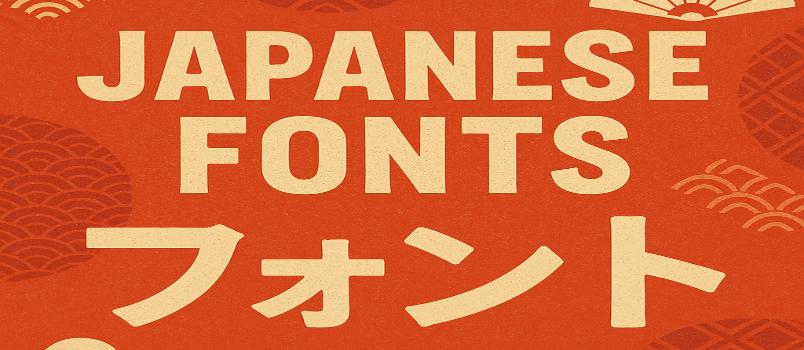
Japanese font design represents one of the most sophisticated and culturally rich writing systems in the world. These elegant typefaces carry centuries of tradition while adapting to modern digital needs, making them essential tools for designers working with Japanese text or seeking to capture the aesthetic essence of Japanese culture.
Choosing the Right Japanese Font
Selecting appropriate Japanese fonts depends on your project’s goals, audience, and medium. Corporate communications benefit from established fonts like Hiragino or Yu Gothic, which balance professionalism with excellent readability across devices.
Creative projects allow for more experimental choices, including decorative fonts that incorporate traditional motifs or contemporary interpretations of classical styles. However, readability should never be sacrificed for visual appeal, especially when communicating important information.
Japanese Fonts
Karate
Gang of Three
This rebellious typeface breaks conventional rules with attitude and edge. Gang of Three font delivers street-smart typography that’s perfect for urban designs, music projects, and brands targeting younger demographics who appreciate unconventional aesthetics.
Sayonara
Elegantly bidding farewell to ordinary typography, Sayonara font flows with graceful curves reminiscent of traditional Japanese brush strokes. This versatile typeface works beautifully for restaurant menus, cultural events, and designs requiring gentle sophistication.
Bonzai
Compact yet mighty, Bonzai font draws inspiration from the ancient art of miniature tree cultivation. This carefully crafted typeface brings zen-like balance to your designs, perfect for wellness brands, meditation apps, and projects emphasizing mindful simplicity.
Chinese Takeaway
Yama Moto
Named after mountain origins, Yama Moto font stands tall with natural strength and organic flow. This earthy typeface connects your designs to nature’s wisdom, making it excellent for outdoor brands, organic products, and environmentally conscious messaging.
Osaka Sans Serif
Clean and contemporary, Osaka Sans Serif font represents modern Japanese design philosophy. This minimalist typeface strips away unnecessary elements while preserving cultural essence, perfect for tech companies, architectural firms, and forward-thinking brands.
Chow Fun
Deliciously distinctive, Chow Fun font adds flavor to every project with its handcrafted character. This approachable typeface works wonderfully for casual dining establishments, food blogs, and designs that celebrate culinary creativity.
Last Ninja
Stealthy and sharp, Last Ninja font moves through your designs with silent precision. This mysterious typeface brings ancient warrior mystique to modern projects, ideal for gaming interfaces, martial arts studios, and brands with adventurous spirits.
Seven Monkey Fury
Energetic and unpredictable, Seven Monkey Fury font unleashes creative chaos in the best possible way. This dynamic typeface captures playful rebellion, perfect for entertainment brands, children’s products, and projects celebrating uninhibited fun.
Gyosho
Flowing like water over stone, Gyosho font embodies the fluid beauty of Japanese calligraphy. This artistic typeface brings meditative elegance to luxury brands, art galleries, and designs requiring sophisticated cultural resonance.
Pho Tai
Warm and inviting, Pho Tai font creates instant comfort through its approachable letterforms. This friendly typeface captures the communal spirit of shared meals, making it perfect for restaurants, food packaging, and hospitality brands.
Font Shui
Harmoniously balanced, Font Shui font brings positive energy to your design projects. This thoughtfully crafted typeface incorporates principles of spatial harmony, ideal for wellness centers, interior design firms, and lifestyle brands promoting balance.
Deng Thick
Bold and substantial, Deng Thick font makes statements that can’t be ignored. This robust typeface delivers maximum impact for headlines, signage, and designs requiring commanding presence without sacrificing readability.
Atomic Sushi
Fusion at its finest, Atomic Sushi font combines traditional elements with contemporary edge. This innovative typeface bridges cultures and generations, perfect for modern Japanese restaurants, fusion brands, and cross-cultural design projects.
Tecnojap
Where technology meets tradition, Tecnojap font represents the digital future of Japanese typography. This cutting-edge typeface works brilliantly for tech startups, gaming companies, and brands operating at the intersection of innovation and heritage.
Kaneiwa Alp
Mountain-inspired and majestic, Kaneiwa Alp font reaches new heights in typographic expression. This elevated typeface brings natural grandeur to outdoor gear brands, travel companies, and projects celebrating adventure and exploration.
Music Warrior
Japanese font typography remains a living art form that honors tradition while embracing innovation. Whether you’re designing for Japanese audiences or incorporating Japanese aesthetic elements into international projects, understanding these remarkable typefaces opens new possibilities for meaningful visual communication.